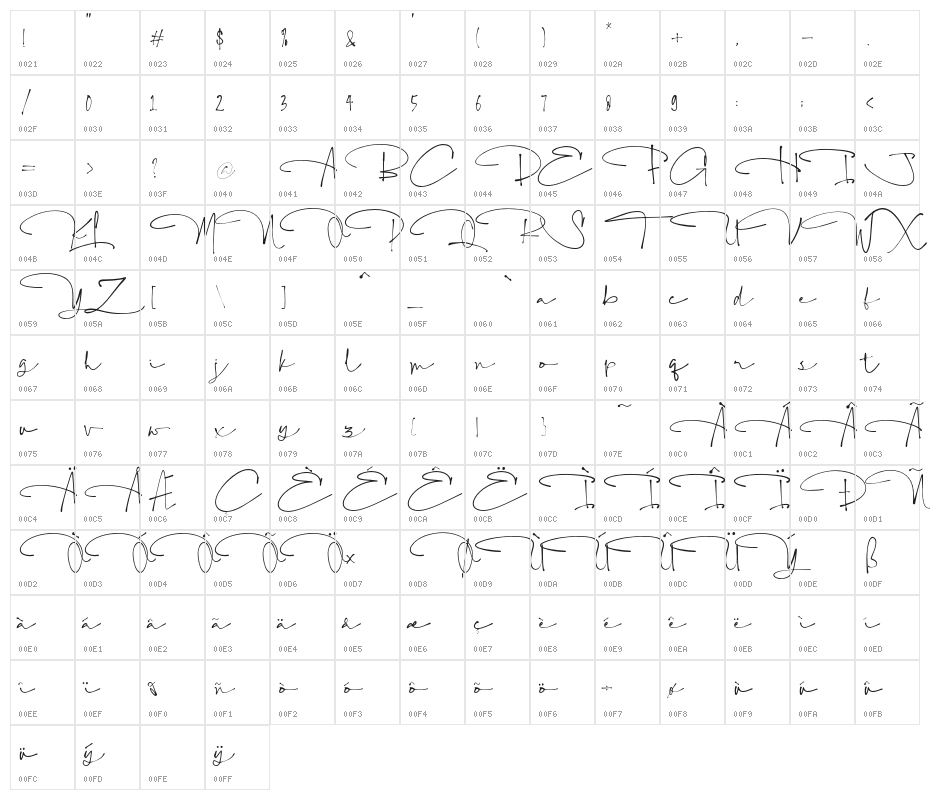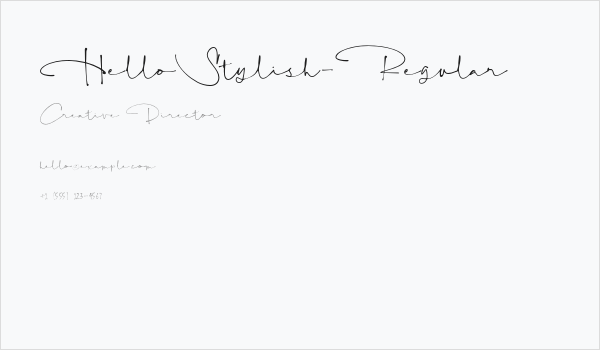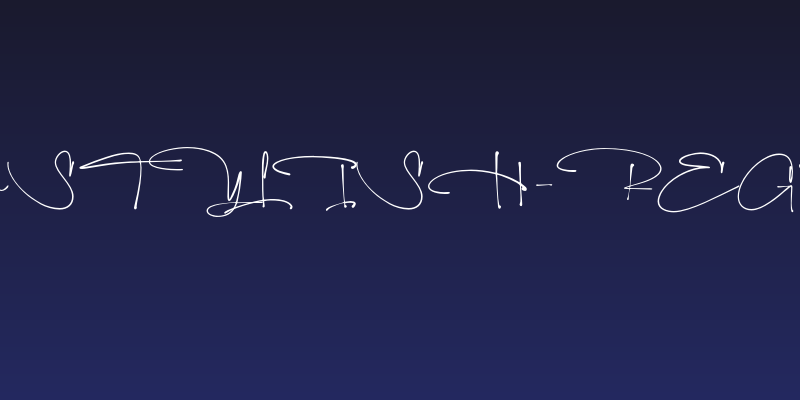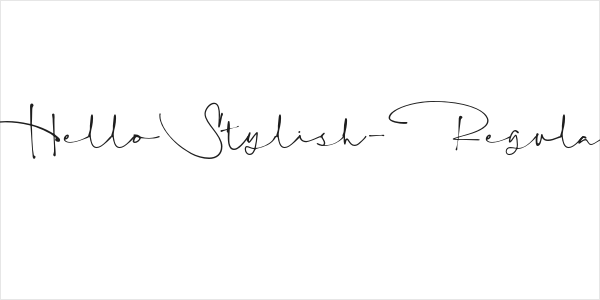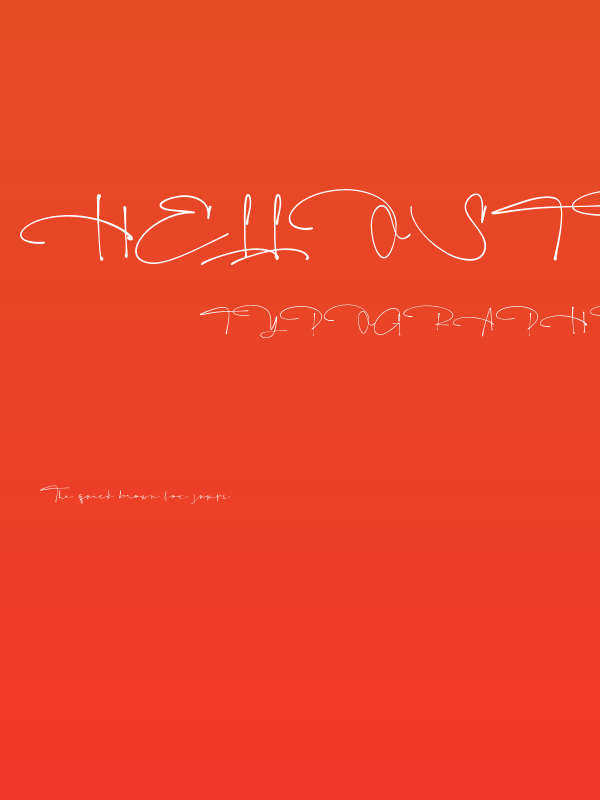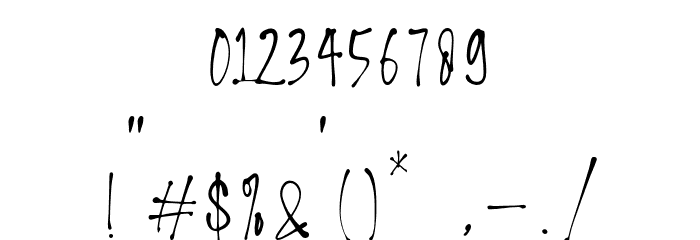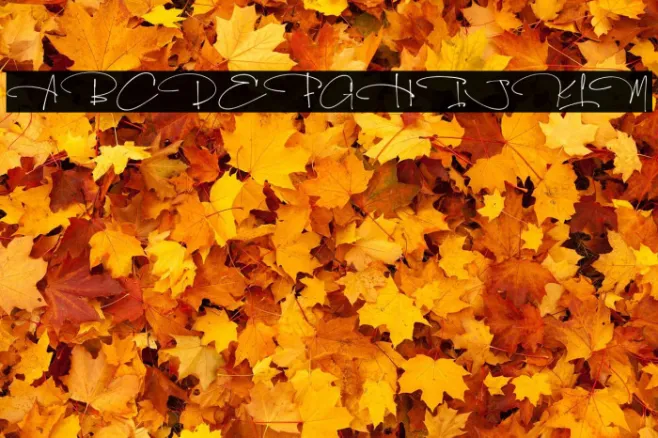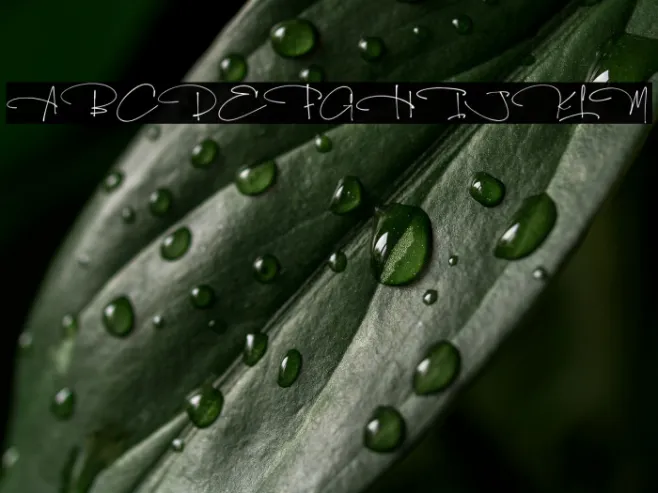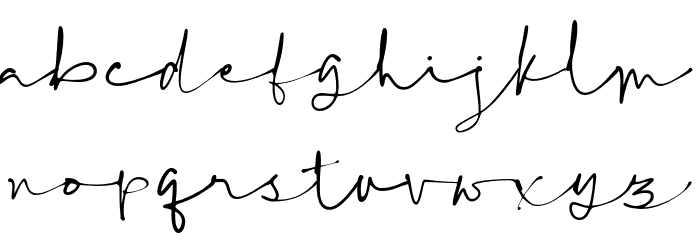
HelloStylish-Regular Font
HelloStylish-Regular Description
This font features a stylish, handwritten script style with elegant, flowing lines and a modern aesthetic. The uppercase letters are distinct with a playful yet sophisticated flair, while the lowercase letters maintain a smooth, cursive appearance. Numbers and special characters are crafted with the same attention to detail, ensuring consistency across all elements. The font's thin strokes and graceful curves make it ideal for projects that require a touch of elegance and personality.
| Proposed Projects | Ideal for wedding invitations, personal branding, greeting cards, and elegant logos. |